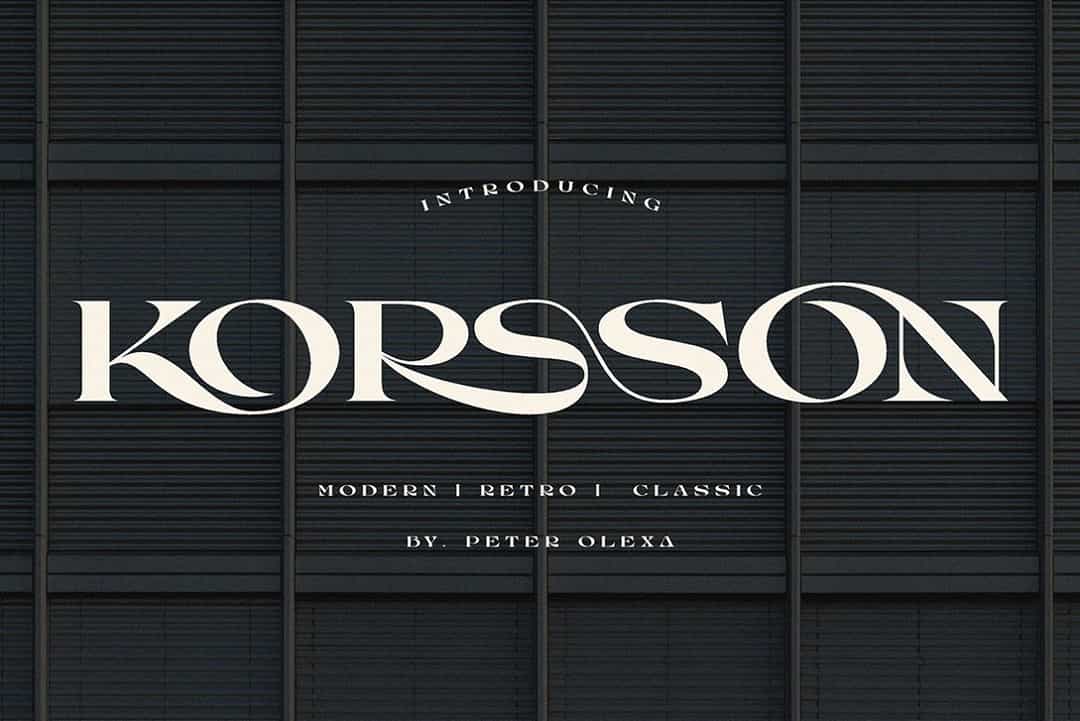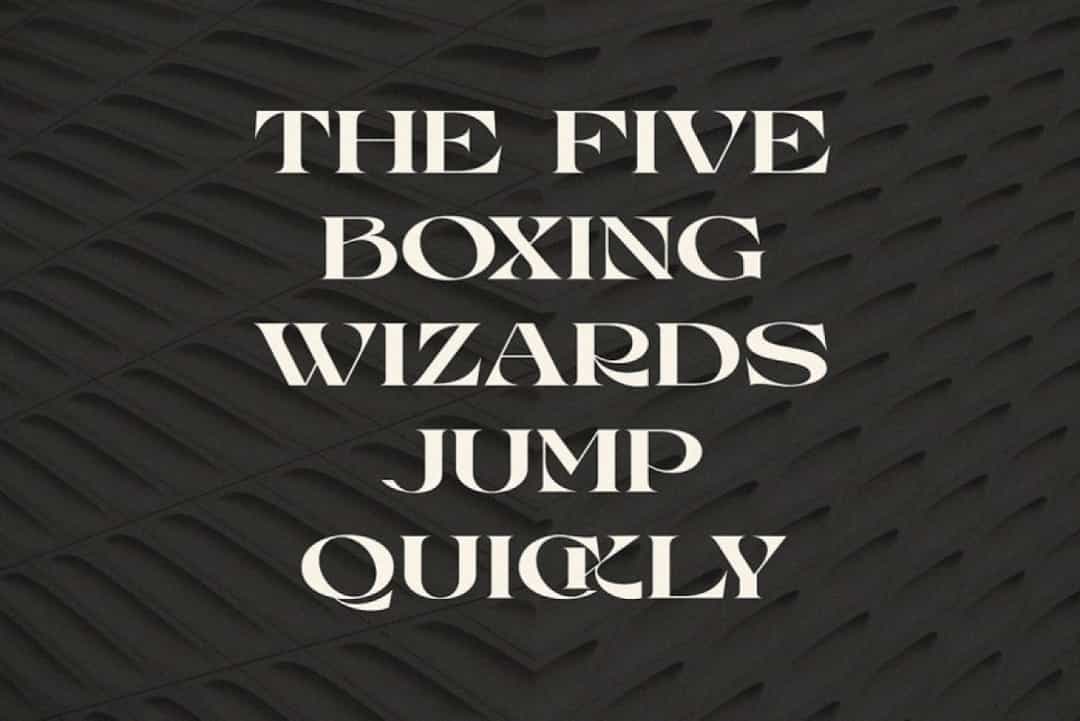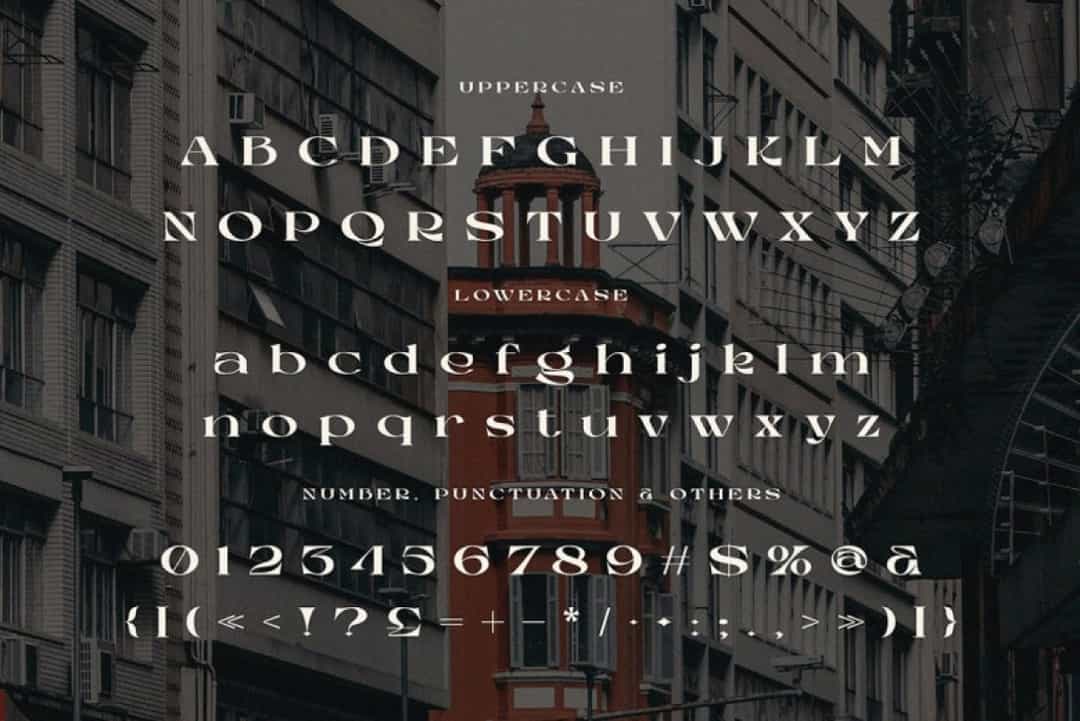
Korsson font is an exquisite and fashionable serif font designed to meet all your contemporary projects’ design requirements. With numerous ligatures and alternative fonts at your disposal, creating distinctive logo designs or headers for websites has never been simpler!